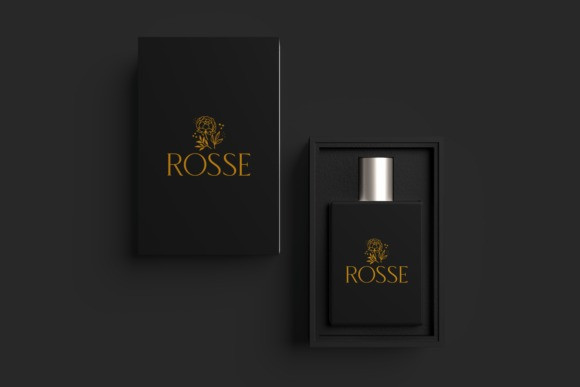
Walking Longer Font
Walking Longer Font, an elegant serif font. The font itself is a tall and thin (condensed) serif, exuding a classic, formal, and sophisticated feel perfect for high-end branding and editorial use.